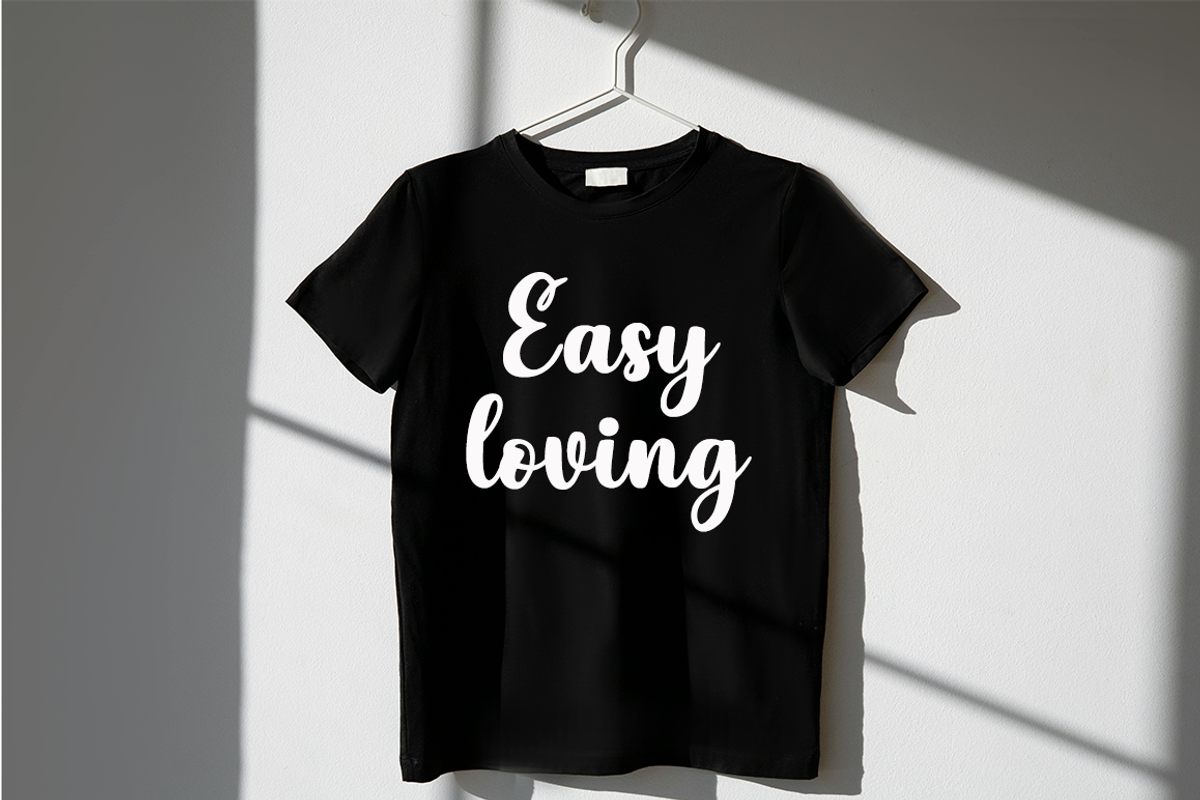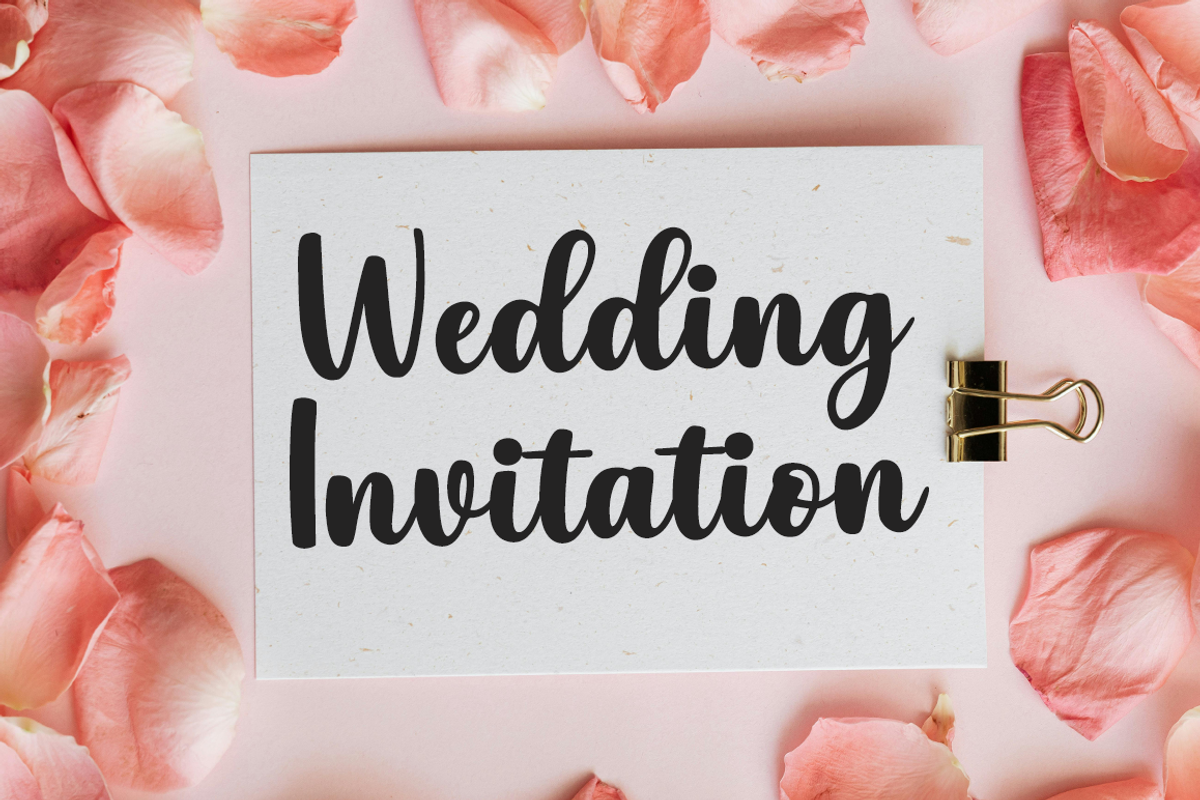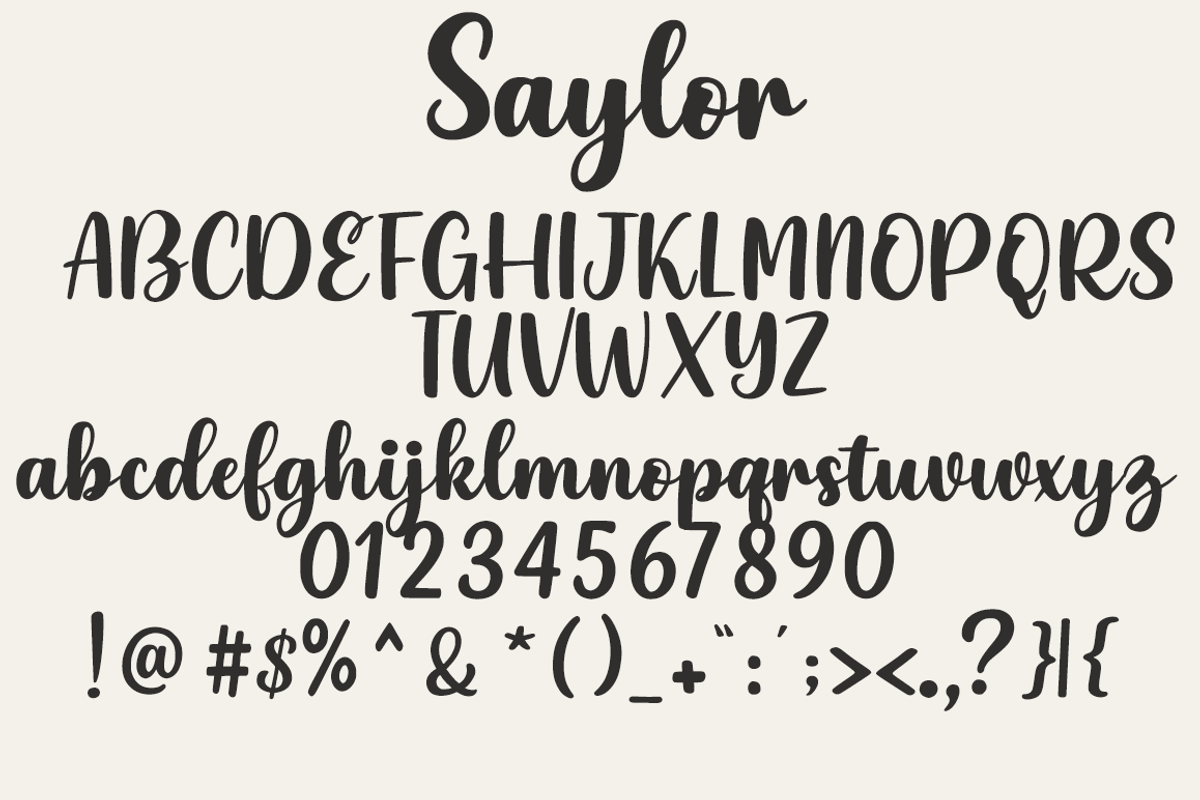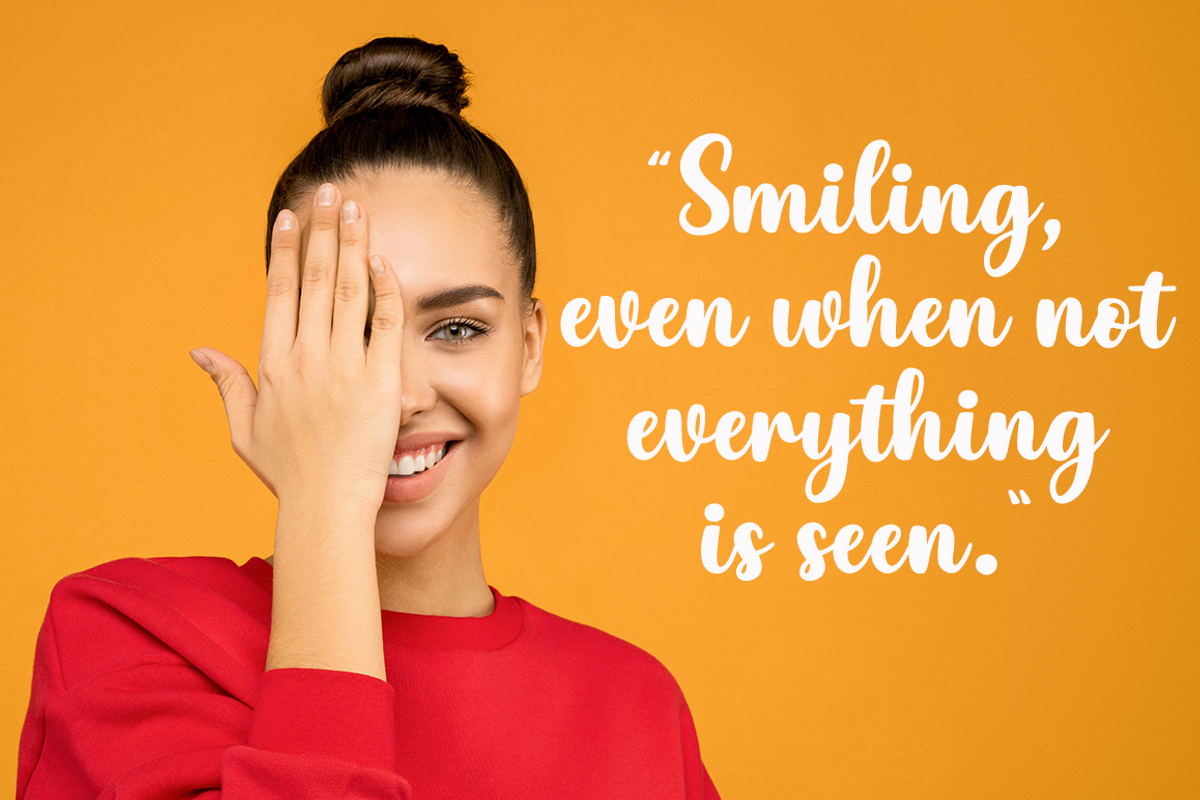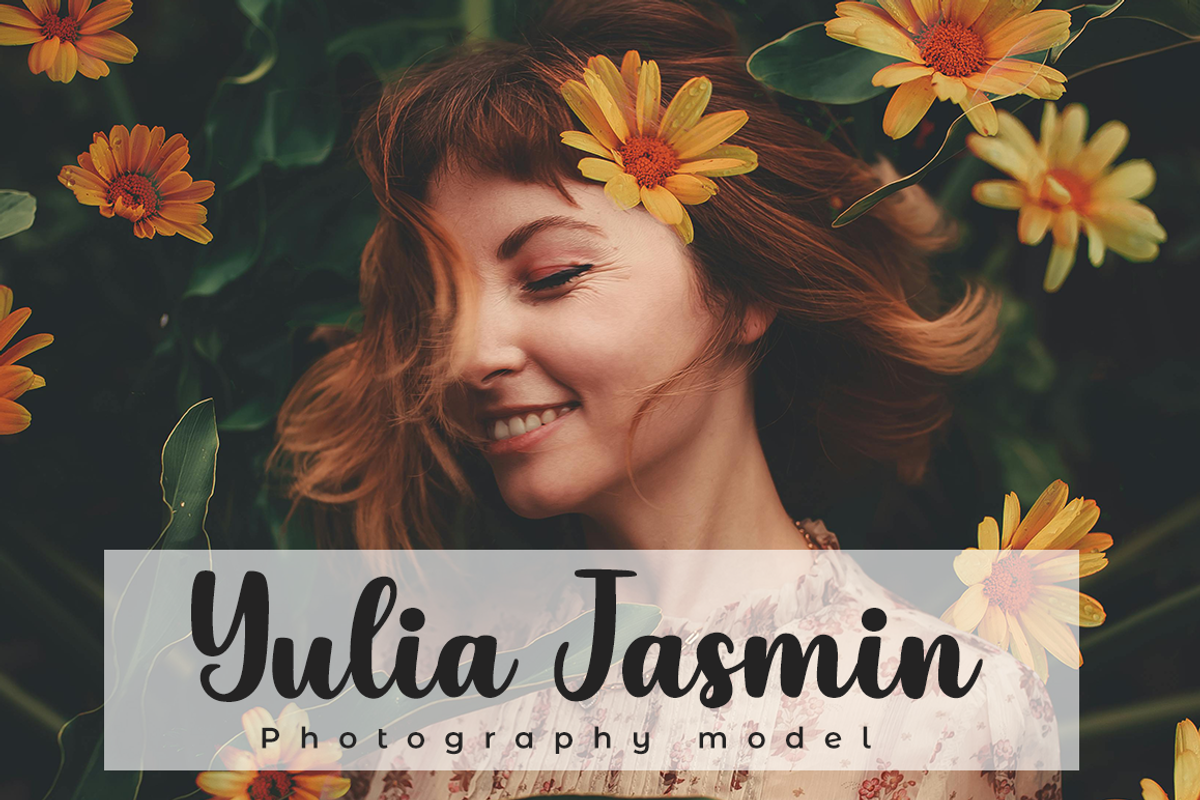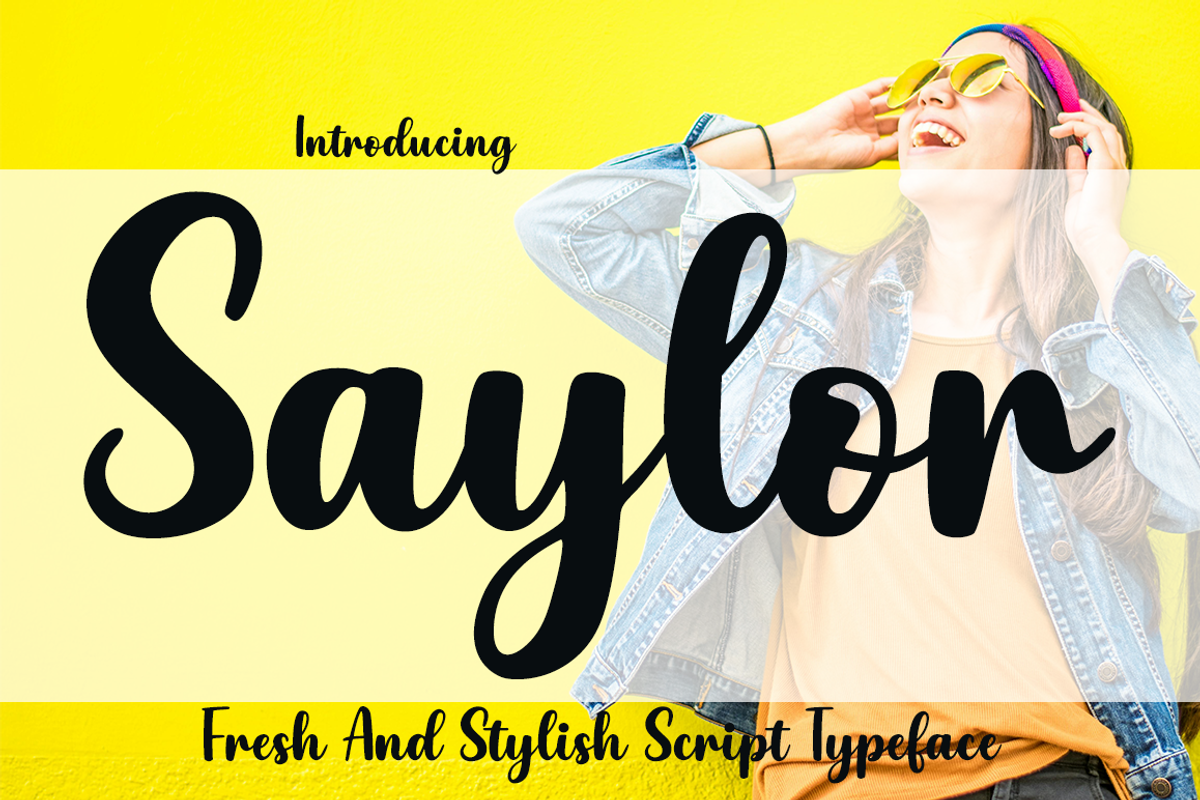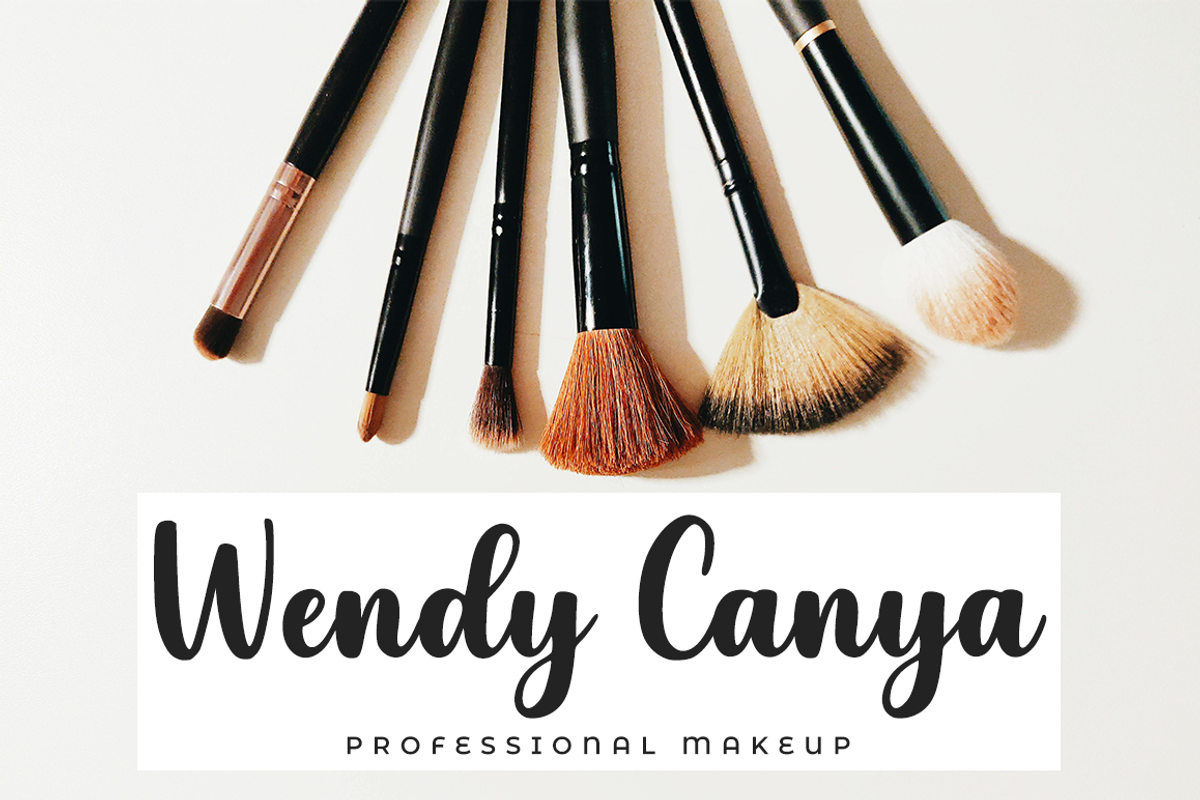
Saylor – Playful Modern Script Font
Saylor is a modern script font with a smooth, playful, and stylish handwritten look. Designed with soft brush strokes and clean curves, it offers a natural flow while maintaining a professional appearance. Perfect for creative branding that needs a fresh and lively touch.
With smooth connected letters and friendly curves, Saylor adds a natural, modern feel that makes every design look more expressive and unique.